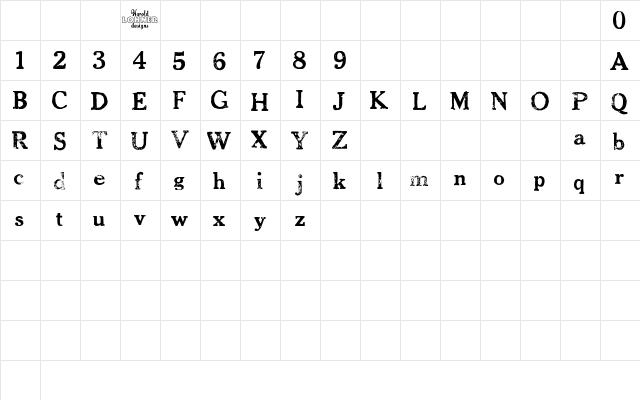
CheltPress Trial Font Preview
CheltPress Trial
CheltPress Trial Font Details
Design Context for CheltPress Typeface
CheltPress takes a measured approach to typography — its balanced proportions and neutral character make it a reliable workhorse for both digital and print work.
Pro Tip: Use CheltPress in both headline and body roles to test its range before committing to a single application.